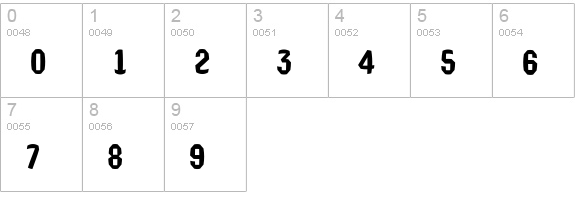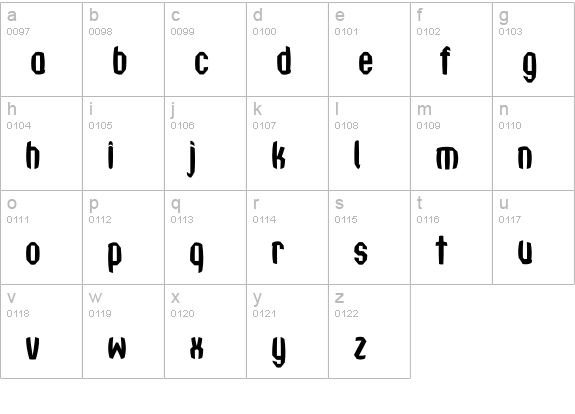
a_TechnicsBrl DemiBold Font Details
a_TechnicsBrl DemiBold is a sub-bold, structured variant in the a_TechnicsBrl typeface family \xE2\x80\x94 well suited to sub-headlines and emphasised passages.
TechnicsBrl DemiBold is a modern and stylish font that exudes confidence and sophistication. With its bold and distinctive appearance, this font is perfect for making a statement in various design projects. Whether you are creating logos, headlines, or marketing materials, TechnicsBrl DemiBold will help your text stand out and leave a lasting impression. The clean lines and sharp edges of TechnicsBrl DemiBold add a touch of professionalism to any design, making it a versatile choice for both print and digital applications. This font is designed to be easily readable while still commanding attention, making it ideal for a wide range of design projects. Best of all, TechnicsBrl DemiBold is available for free download at FontsMarket.com. This means you can access this high-quality font without any cost, making it a valuable addition to your font collection. Don't miss out on the opportunity to enhance your designs with the bold and modern style of TechnicsBrl DemiBold. Download it today and take your typography to the next level!